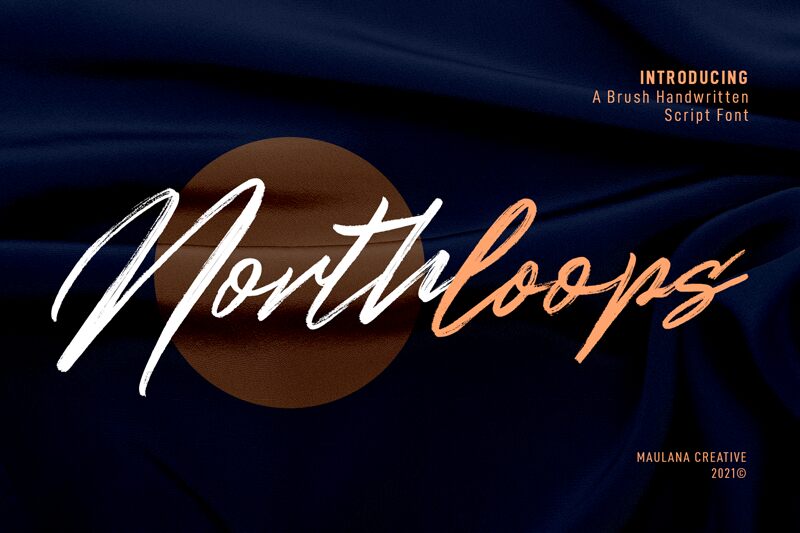
Northloops
Northloops is a semi-light brush typeface designed by Maulana Creative. Its condensed width and flowing strokes make it an ideal font for creative projects that require a bold yet elegant touch. From product packaging to social media graphics, Northloops can elevate any design with its unique style. Its versatility allows it to be used for both modern and traditional designs, making it perfect for branding, invitations, logos, and more. With Northloops in your font collection, you'll be able to add a touch of sophistication to any project you create.